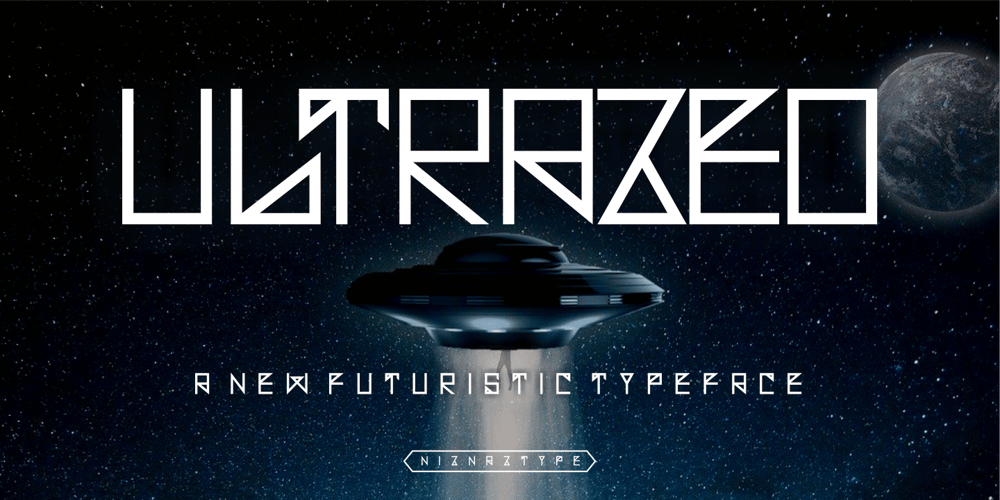
Ultrazeo Font Family was designed by Muhammad Nazarudin and published by Niznaztype. Ultrazeo contains 4 styles and family package options. Ultrazeo is new futuristic typeface. This font very unique’s shapewith rectangle form style. Suitable for designs that take themes likefuturistic, postmodern, millenial, outer space, retro andcontemporary. You can use Ultrazeo for headline, tittle, t-shirt,poster, cover etc.Ultrazeo consist of :- Uppercase- Lowercase- Numeral and punctuation- Multilingual LanguageWith unique and futuristic style, Ultrazeo will make design look likedifferent.Please, enjoy it with my this font product.Send me email in emnazar@gmail.com if you have any question.Thank a lot